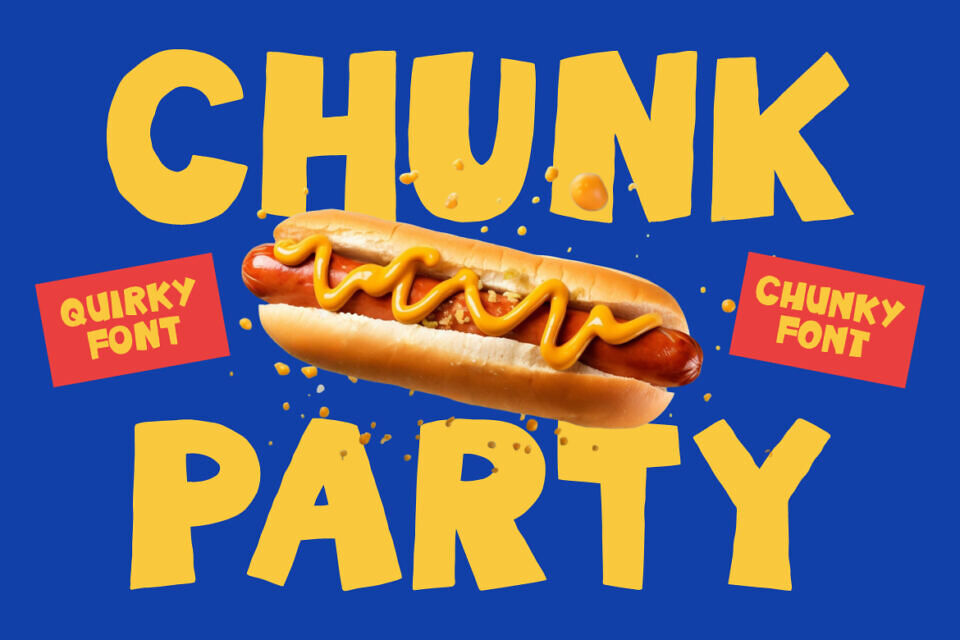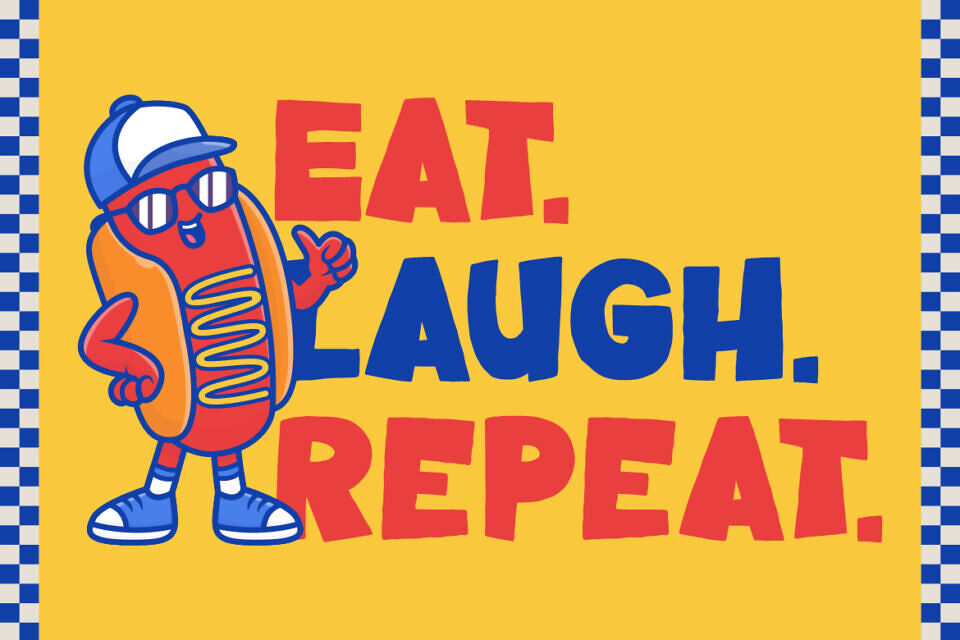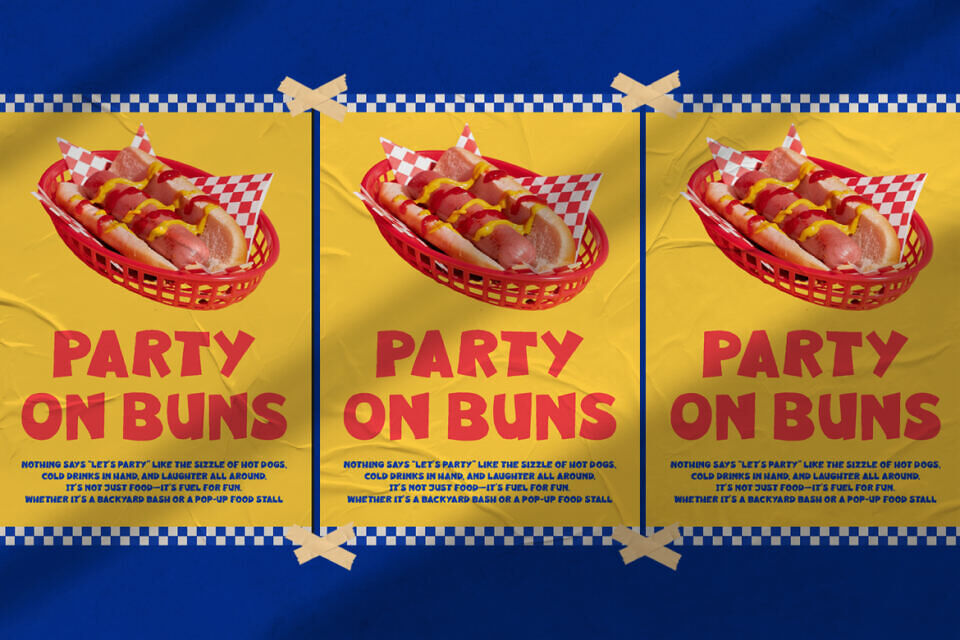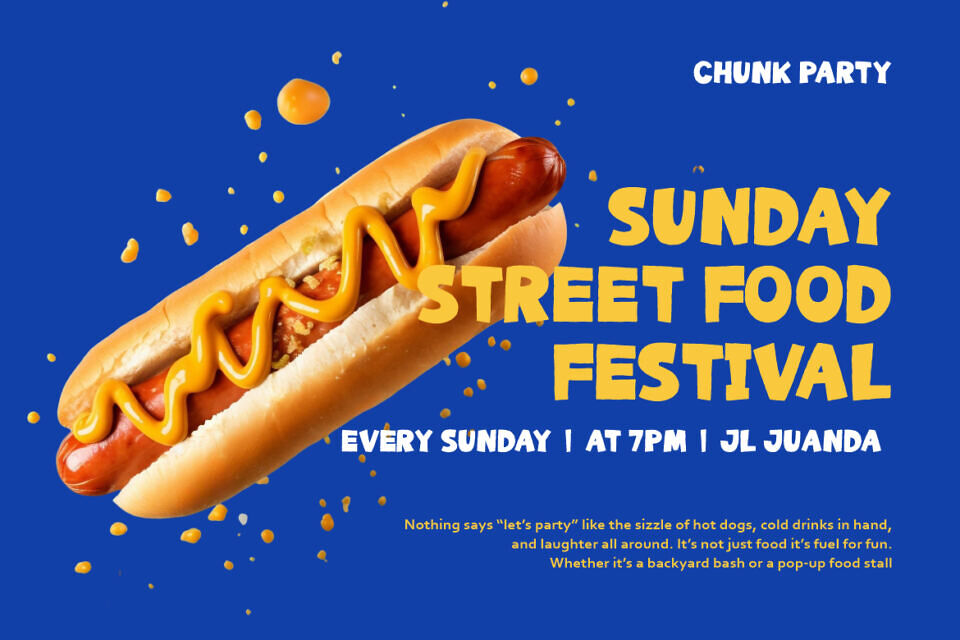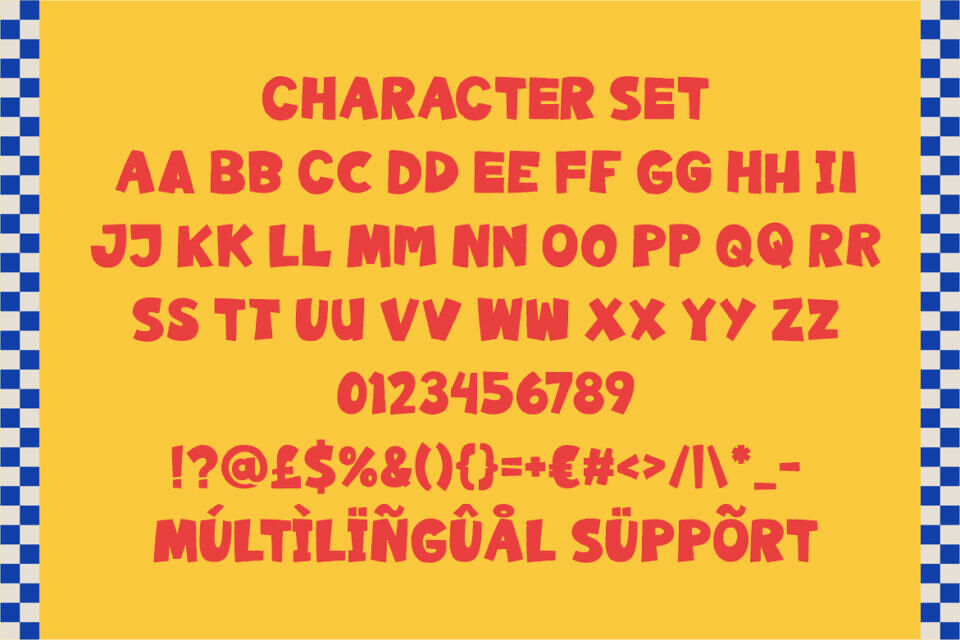
Chunk Party Font
Chunk Party Quirky and Chunky Font brings a burst of flavor and personality to every design. The font features thick, uneven letterforms with playful edges that create a lively and dynamic appearance. Each character is bold and chunky, giving a handmade, casual vibe while keeping excellent readability.
The rounded yet irregular shapes make it feel energetic and full of movement, evoking the cheerful spirit of food trucks, fast-food branding, and street festival posters. The balance between boldness and imperfection gives it a friendly, approachable look that instantly grabs attention.